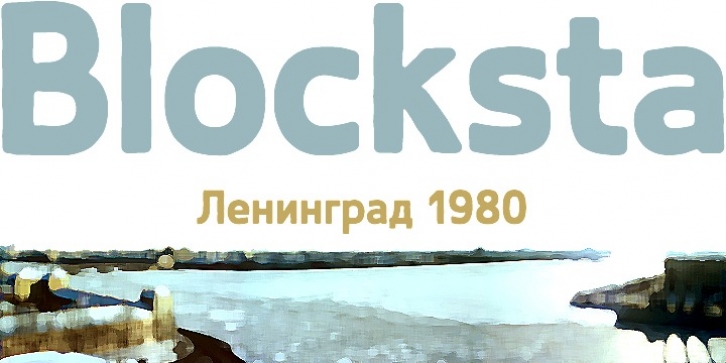
Blocksta was designed by Nicholas Garner and published by AVP. Blocksta contains 1 style.
Based on the character shapes of Atria Bold, Blocksta is a bullish rough cut sans with extensive language support. Hopefully it won't start another cold war.